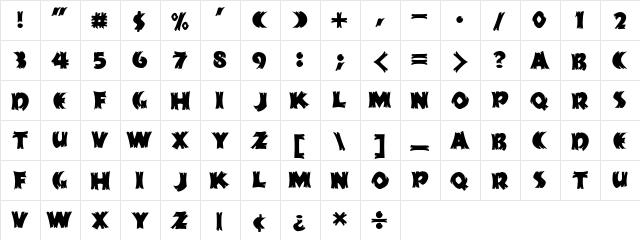
HFF Splintered Dream Regular
Design Context for HFF Splintered Dream Typeface
HFF Splintered Dream is a composed and adaptable typeface that performs quietly and consistently across a wide range of design contexts.
Pro Tip: Use HFF Splintered Dream in both headline and body roles to test its range before committing to a single application.